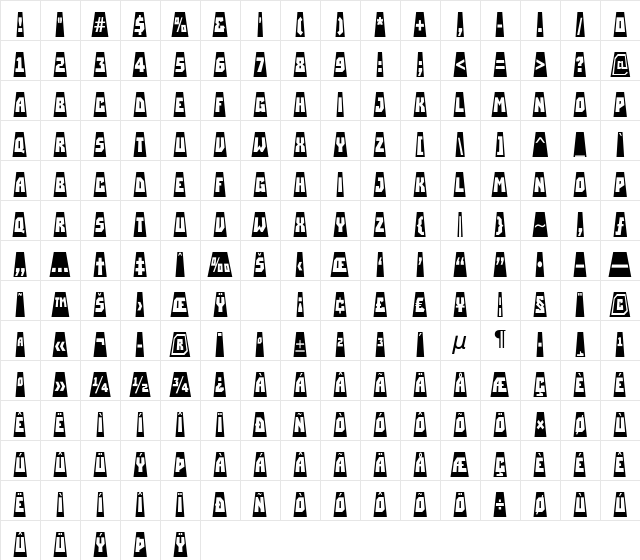
Complete a_SimplerCmCtAbv Bold glyph index. Displaying only characters natively supported by a_SimplerCmCtAbv Bold font.
a_SimplerCmCtAbv is a composed and adaptable typeface that performs quietly and consistently across a wide range of design contexts. Its bold stroke weight gives it real presence on the page.